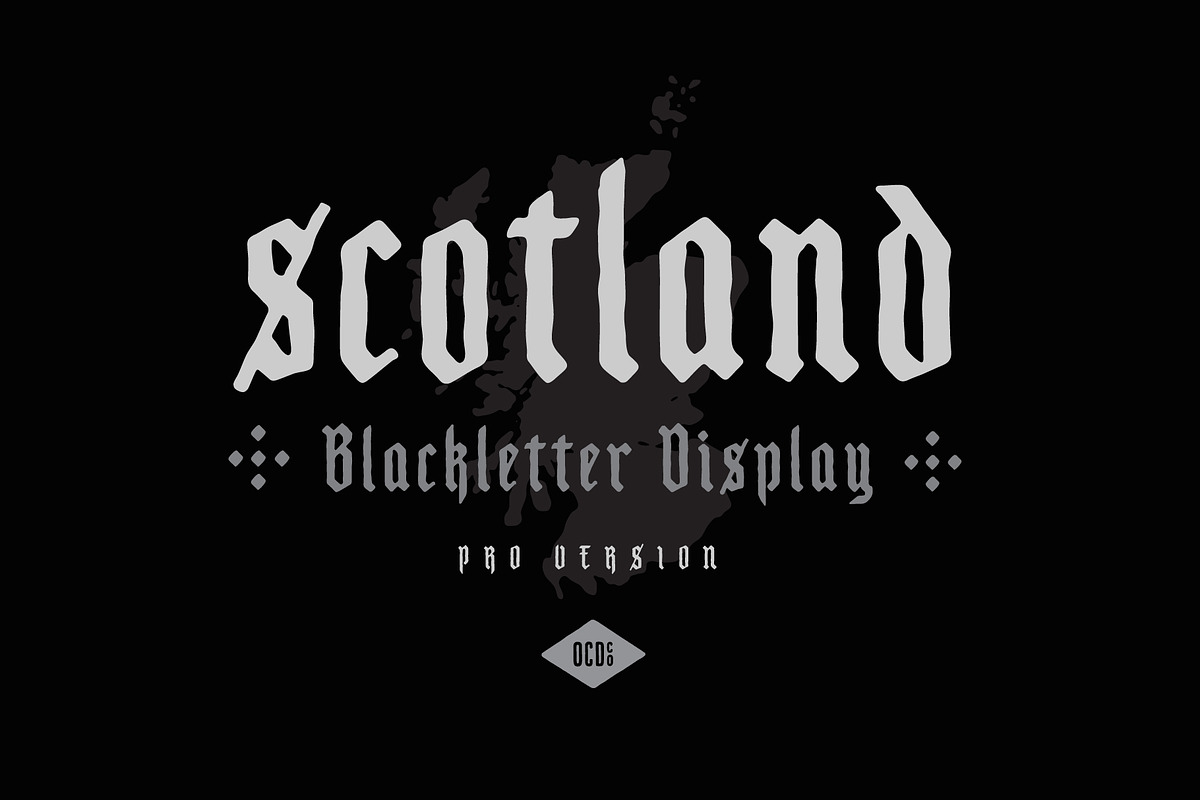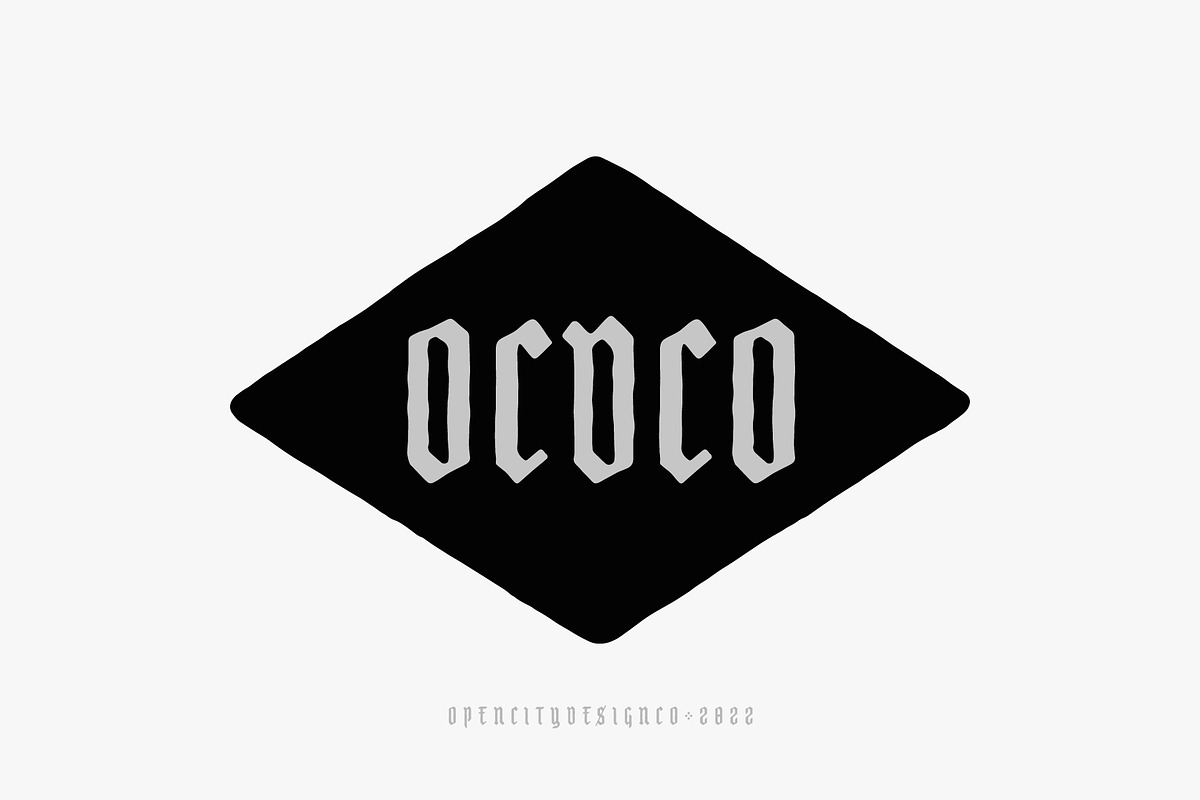
Scotland - Blackletter Display
Scotland - Blackletter Display - PRO Version
This ruggedly handsome hand-lettered blackletter comes in 6 handcrafted styles.